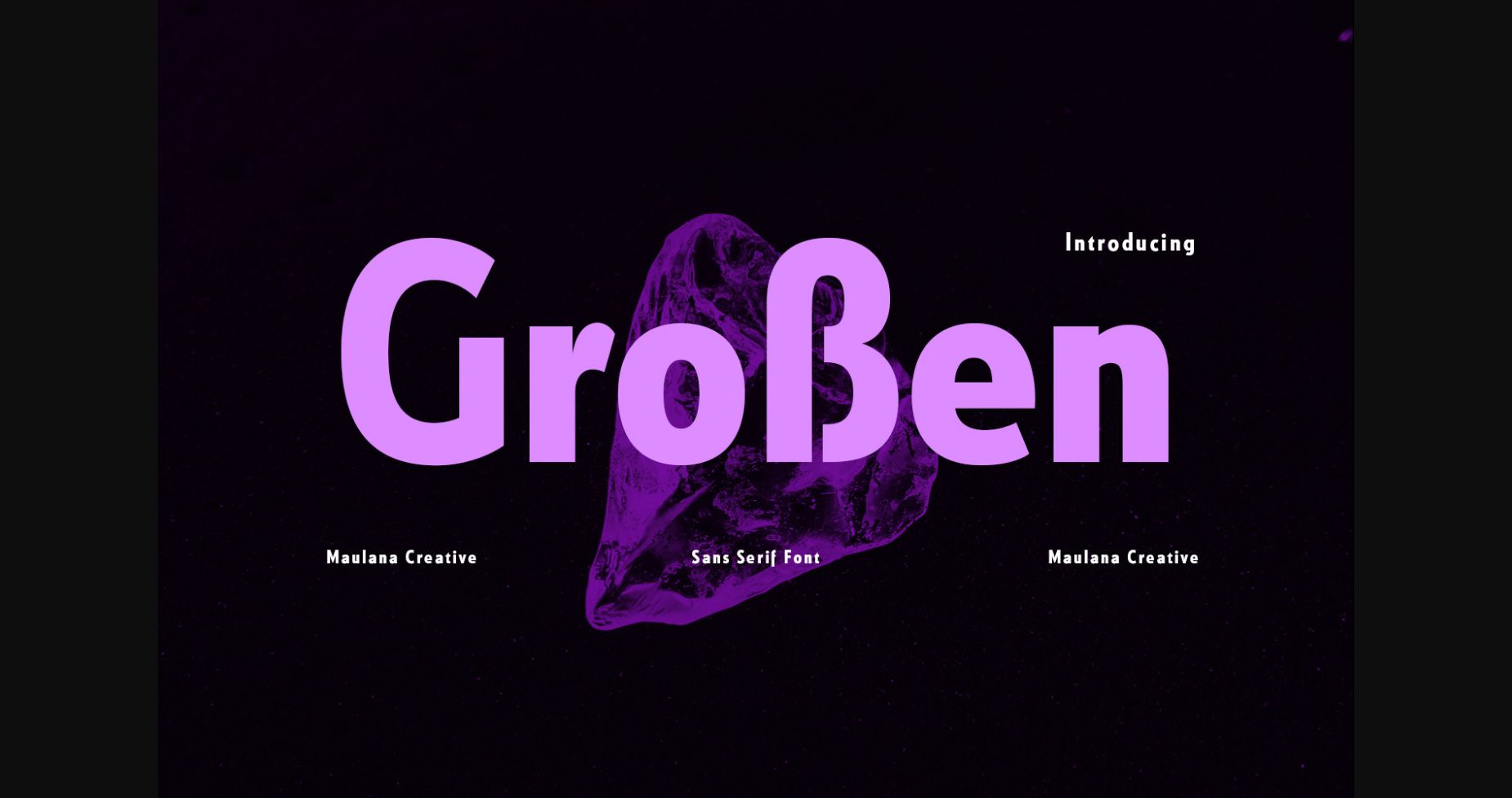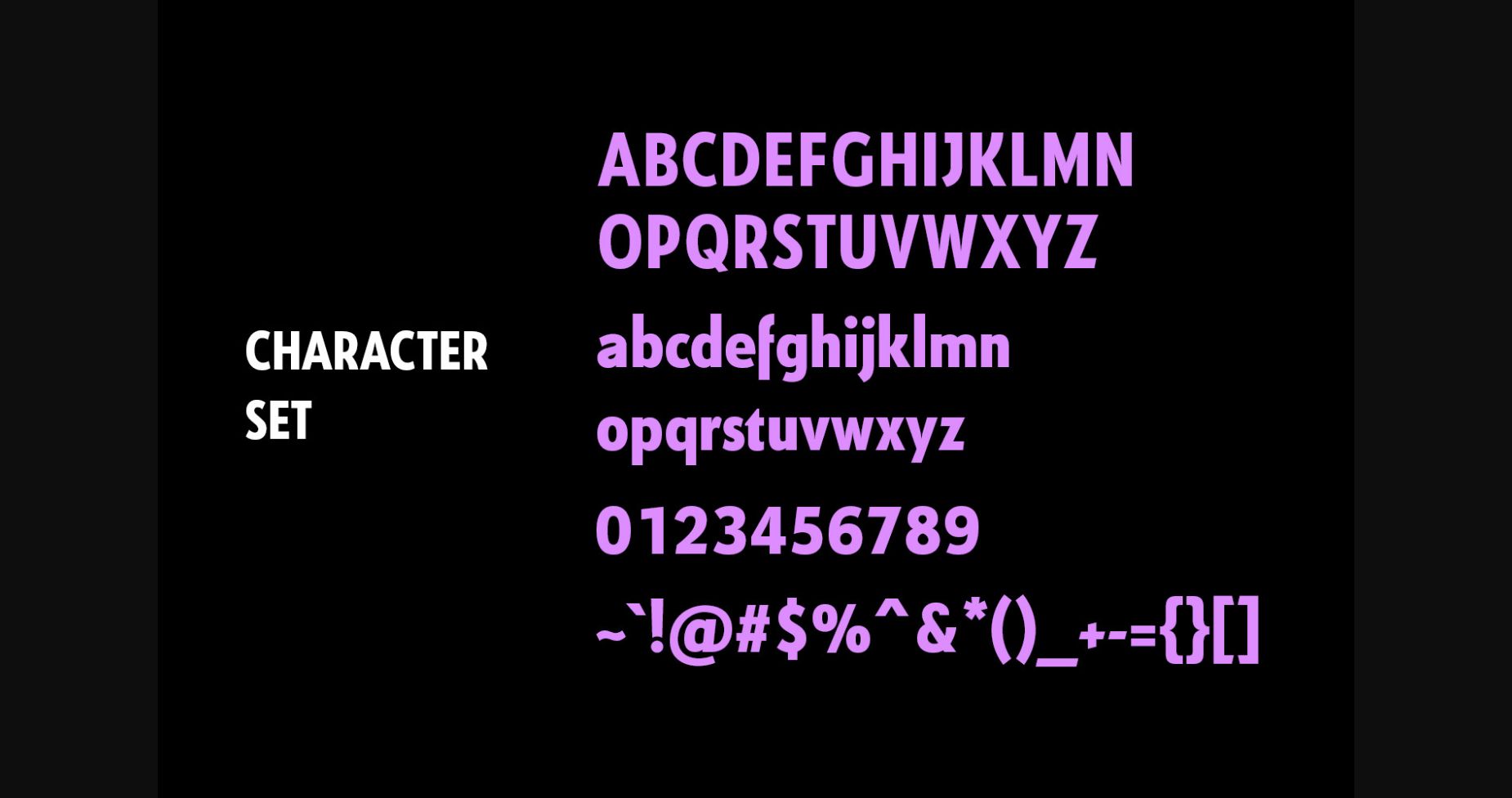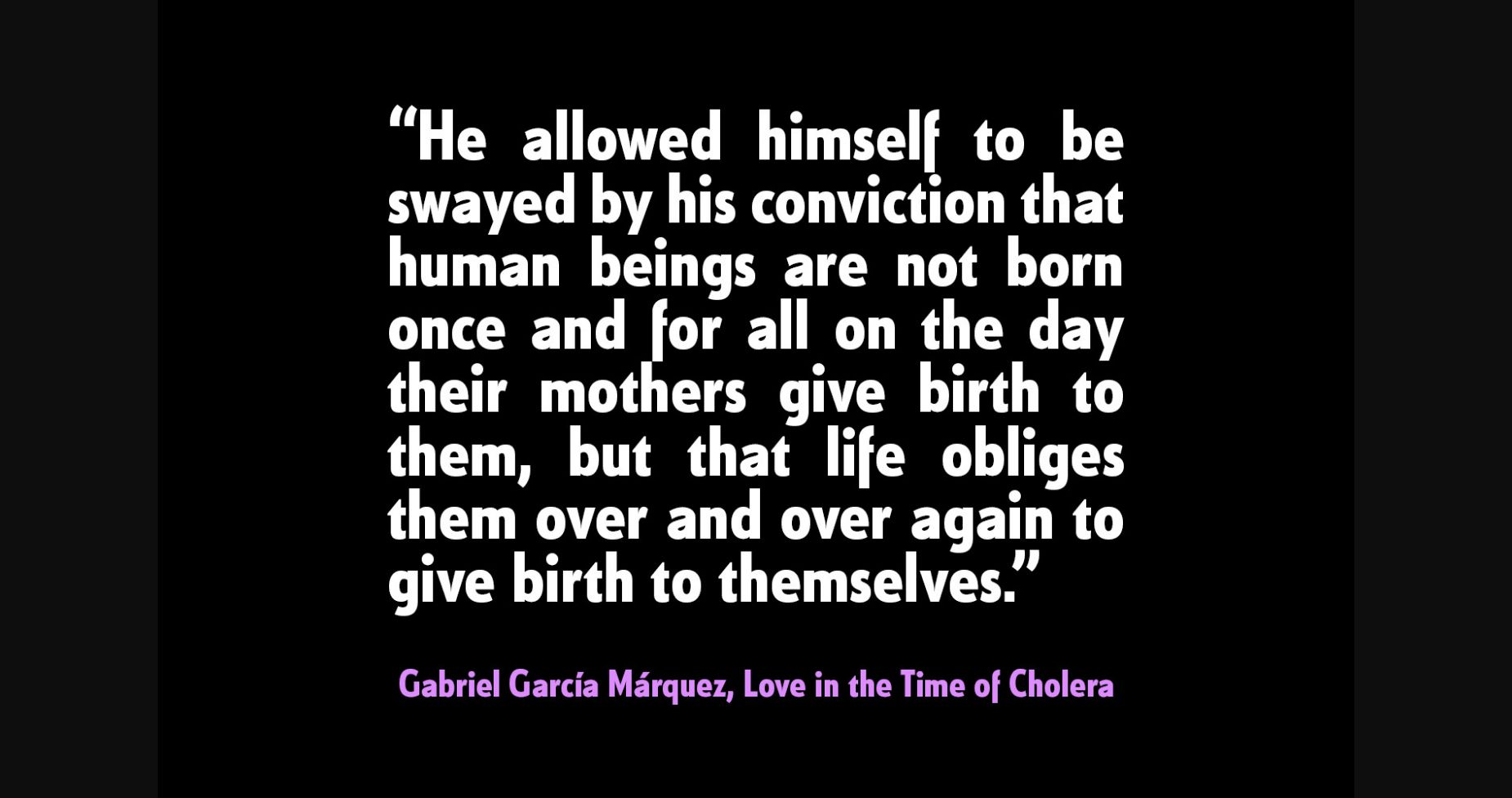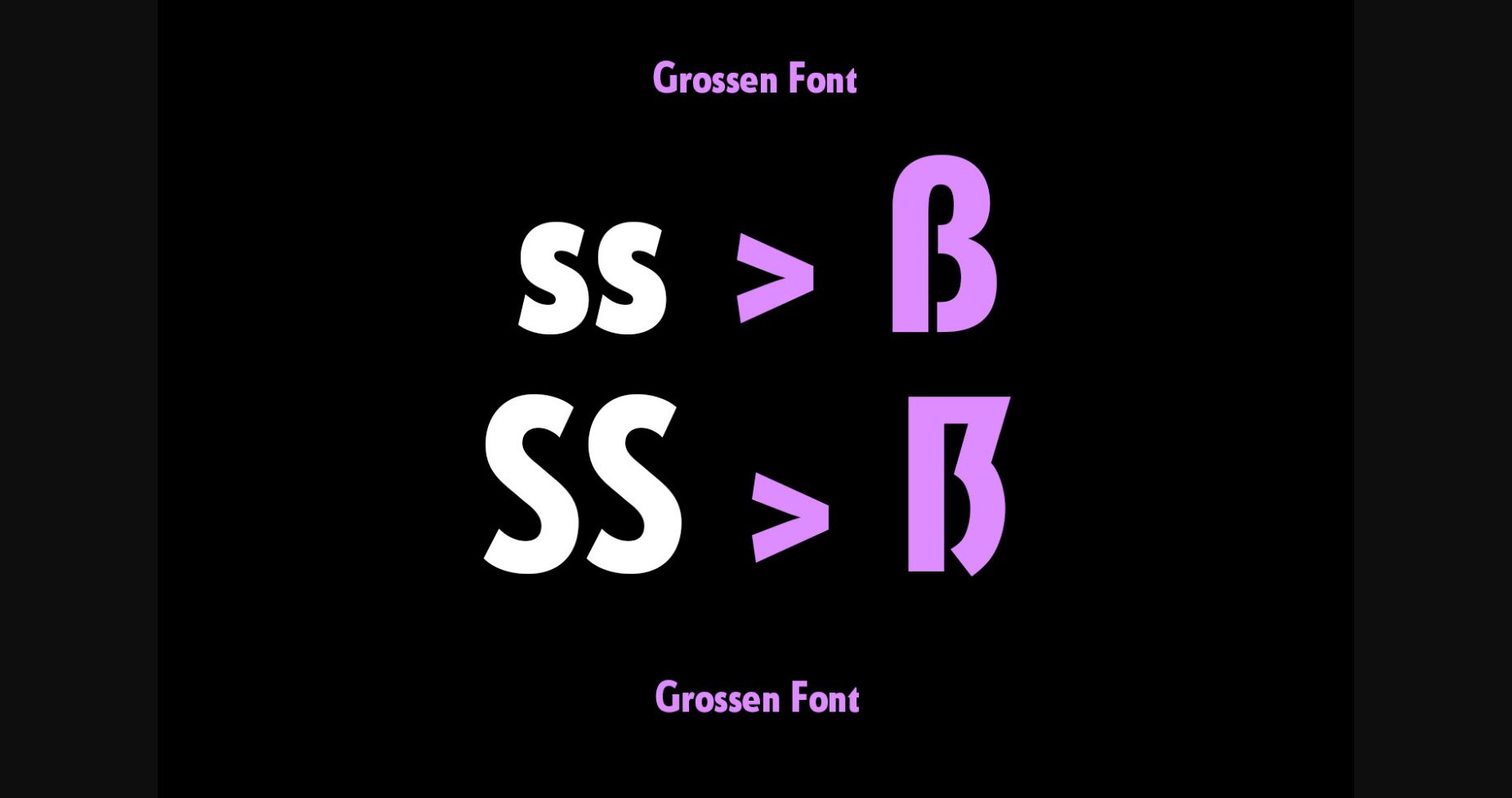
About Großen Font
Introducing our latest contemporary sans-serif font, “Großen “. With its sleek lines and timeless appeal, Modernista is the perfect choice for trendy designs that demand a touch of sophistication. Each letter is crafted with precision, giving it a polished and professional look. Elevate your projects with Großen, the trendy and classic contemporary sans-serif font.